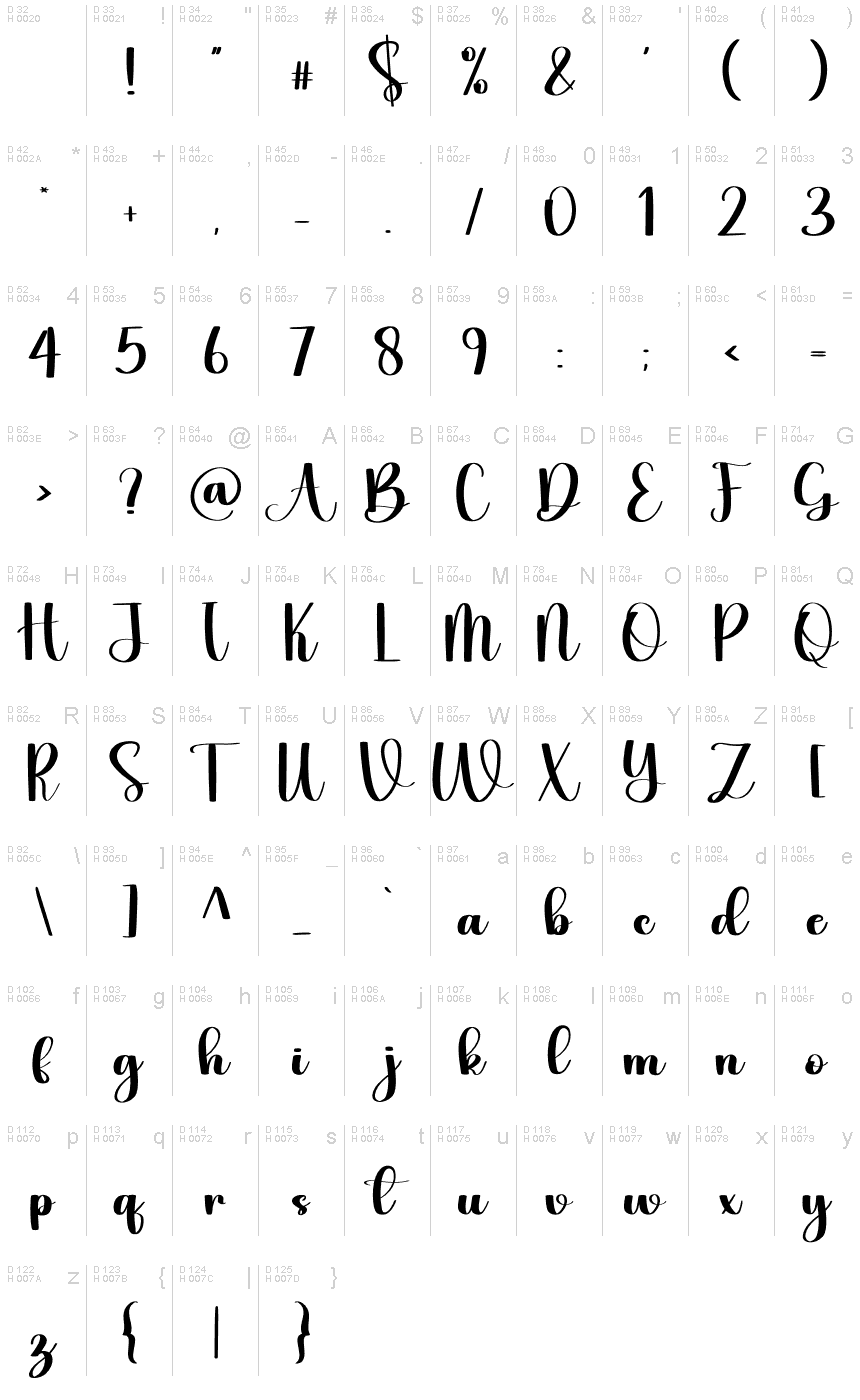
Anythink
Anythink, designed by Harlek Studio, is a captivating calligraphy font that exudes elegance and sophistication. With its semi-bold weight, this font strikes the perfect balance between subtlety and impact.
Ideal for wedding invitations, event branding, and luxury product packaging, Anythink adds a touch of grace and allure to any project. Its flowing strokes and exquisite curves create a visually stunning display that will leave a lasting impression on your audience.
Elevate your designs with Anythink's timeless charm and elevate your brand to new heights of sophistication.